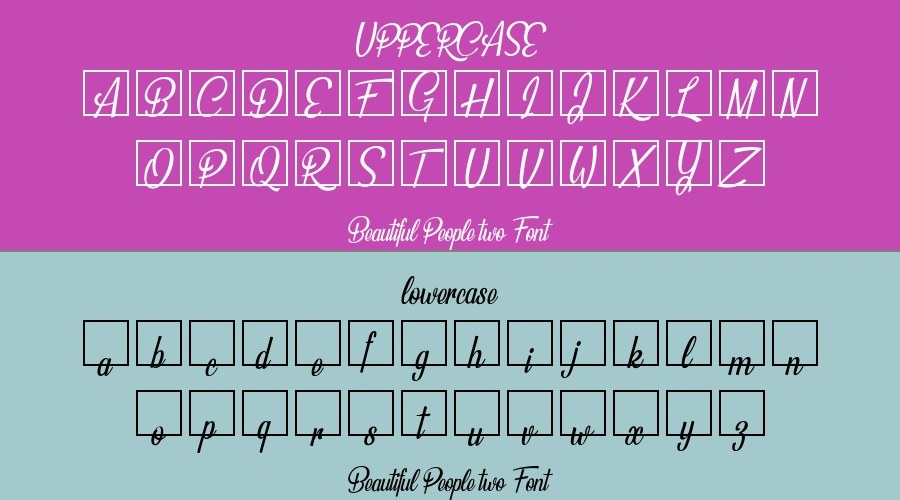
About Beautiful People two Font
Designed with precision, Beautiful People two Font merges systematic design with authenticity in every character. This versatility makes it particularly effective for product naming, where distinctiveness and aesthetic refinement directly impact communication quality. Each letterform demonstrates meticulous craftsmanship.
Technical excellence shines through elements like harmonious shapes and isolated forms, enhancing typographic versatility. In section headers settings, Beautiful People two Font proves its worth through superior texture integration. The thoughtful execution of serif length and artistic influences ensures professional results.